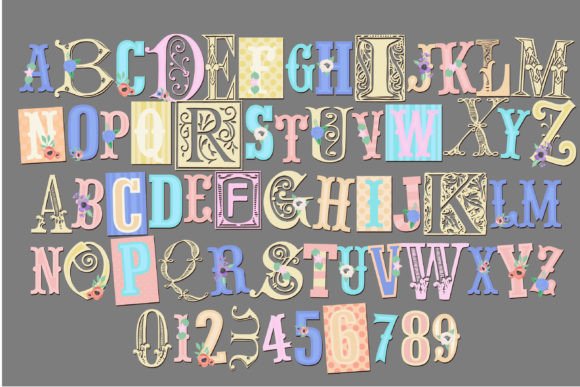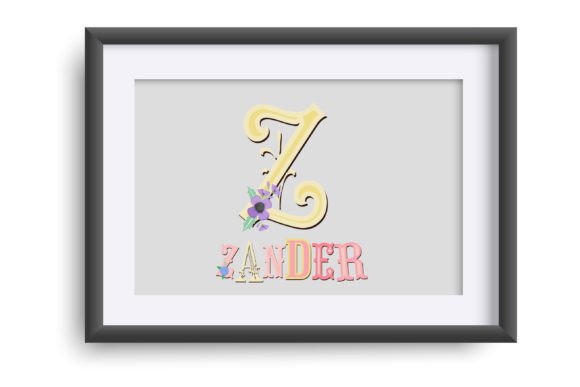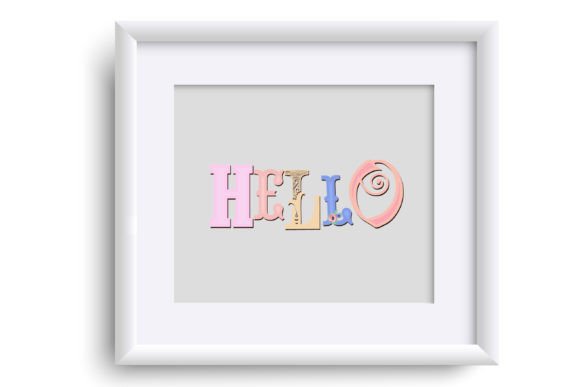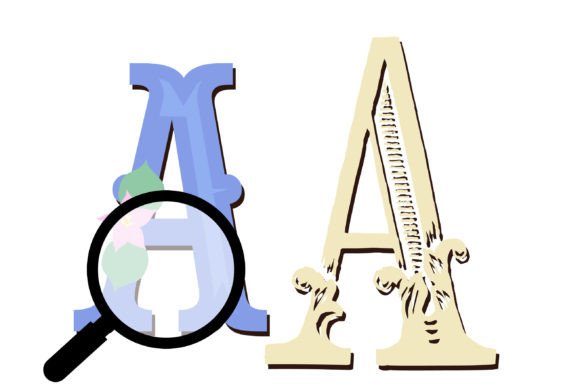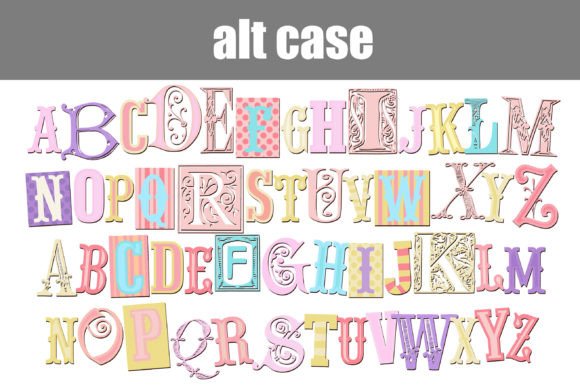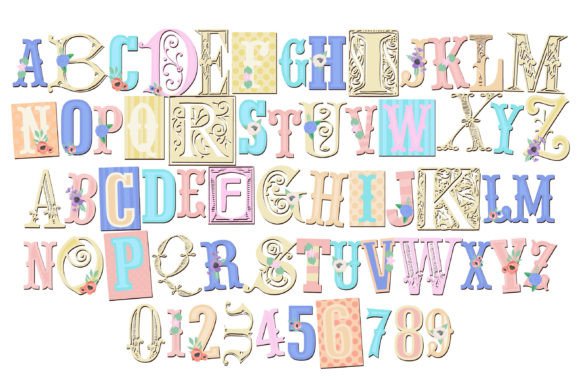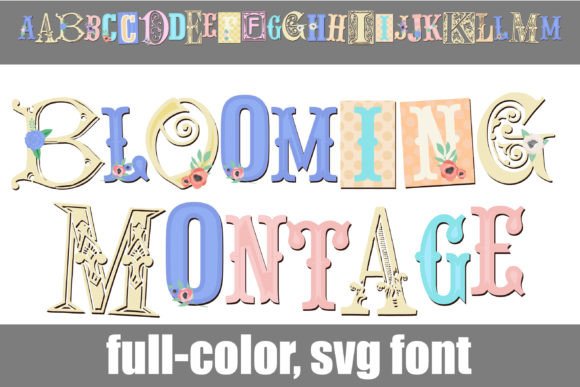
Blooming Montage Font: Elevate Your Designs with Stunning Florals
Are you tired of using the same old fonts in your designs? Look no further than the Blooming Montage Font, a full-color font that features beautiful florals on a mixed font. This unique and eye-catching font is perfect for designers and crafters who want to add a touch of personality to their work.
What is Blooming Montage Font?
Blooming Montage Font is a full-color font that combines stunning florals with a mixed font. The font features an alt case with additional colors that can be accessed through your system or Silhouette’s glyph map. This means that you have a wide range of colors and styles to choose from, allowing you to create unique and complex designs.
The Benefits of Full-Color SVG Fonts
Full-color SVG fonts, like Blooming Montage Font, offer a range of benefits for designers and crafters. With a full range of colors and styles to choose from, you can create anything from simple text logos to complex illustrations. These fonts are perfect for adding a touch of personality to your designs and taking them to the next level.
Tips for Using Blooming Montage Font
Here are some tips for getting the most out of Blooming Montage Font:
• Experiment with different colors and styles to create unique designs.
• Use the font to add a touch of personality to your text logos and illustrations.
• Combine the font with other design elements, such as shapes and textures, to create complex and eye-catching designs.
• Take advantage of the alt case with additional colors to add more variety to your designs.
Blooming Montage Font is a stunning full-color font that is perfect for designers and crafters who want to elevate their designs. With its beautiful florals and mixed font, this font offers a unique and eye-catching way to add personality to your work. Whether you’re creating simple text logos or complex illustrations, Blooming Montage Font is a great choice. So why settle for ordinary fonts when you can use a full-color SVG font like Blooming Montage Font?